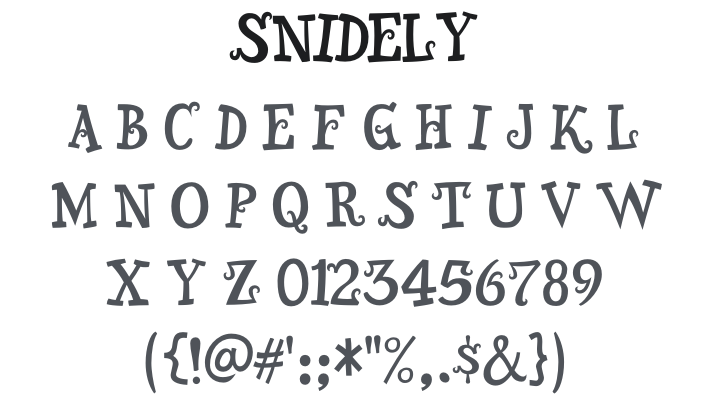
Snidely Font
About Snidely
Snidely is a curly, mirthful cartoon display typeface with exaggerated looping letterforms and bouncy, playful curves that radiate mischievous fun — like the handwriting of a gleefully scheming cartoon villain twirling their moustache. Its lively, springy character feels instantly cheerful and animated. Perfect for children's party designs, comedy branding, cartoon titles, novelty merchandise, greeting cards, and any headline needing infectious, carefree cartoon energy.